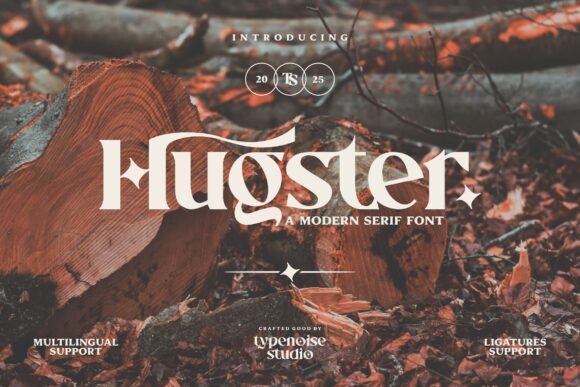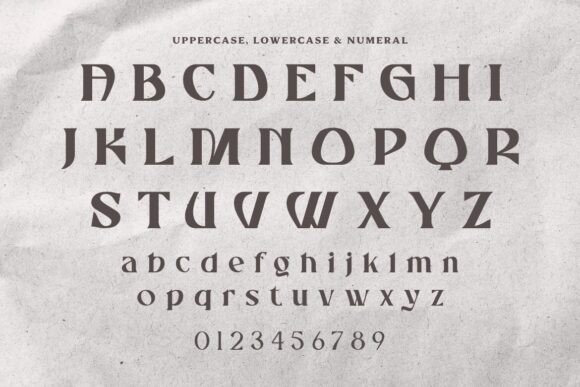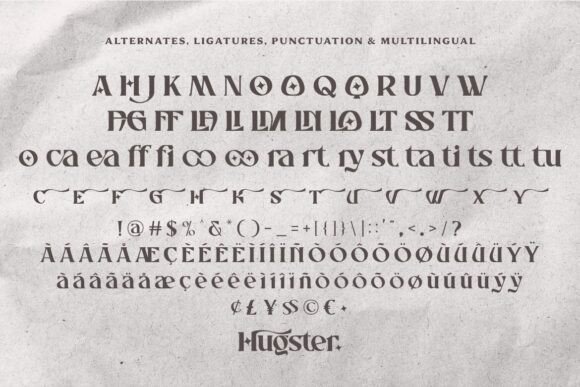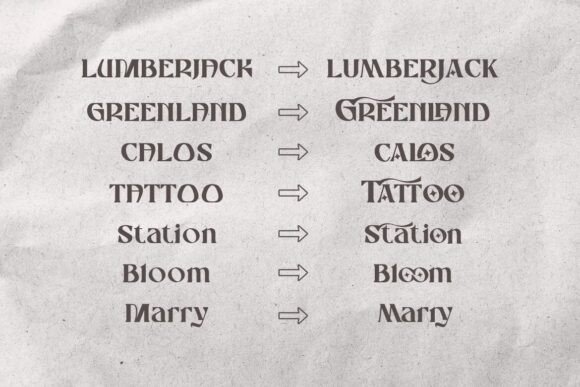
Hugster Font
About the Hugster Font
The wait is over! The incredible Hugster Font is now available for your design toolkit. Hugster is a Modern Serif Font inspired by classic typography elements with a contemporary touch, featuring bold shapes with sharp edges and subtle decorative details and complemented by elegant ligature characters. This typeface is perfect for projects that aim to display a luxurious, elegant and characterful brand presence in both digital and print media.
Hugster excels in headlines, logos, and short-form text applications such as packaging design or posters where its bold shapes and decorative details make a strong visual statement. It’s less suitable for body copy or lengthy paragraphs due to its strong visual weight; readability suffers at smaller sizes.
Its sophisticated personality pairs well with clean sans-serif fonts like Montserrat or Open Sans for a balanced contrast. For a more luxurious feel, consider pairing it with a delicate script font such as Great Vibes or a geometric sans-serif like Futura. Avoid pairing it with other heavily decorated fonts to prevent visual clutter.
Hugster projects an air of confident elegance, making it ideal for brands aiming for a sophisticated and memorable presence. Its modern interpretation of classic serif forms allows it to appeal to both traditional and contemporary audiences.
Hugster Font Usage Examples
Hugster Font Example